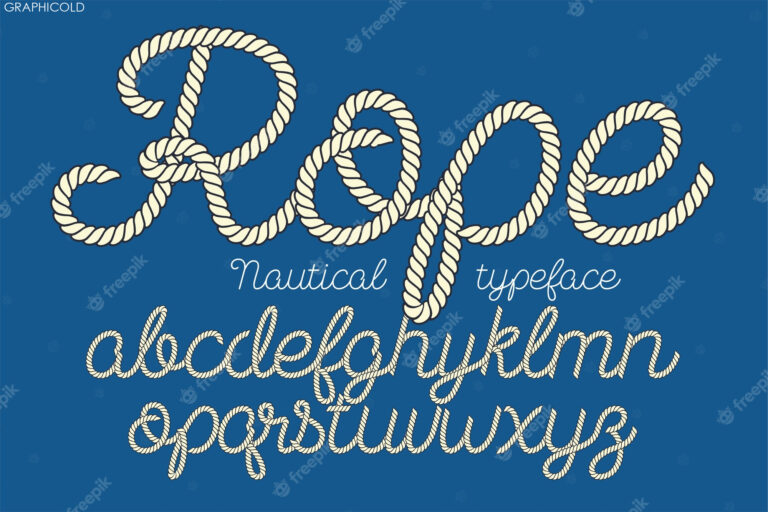
Exploring The Intricate Beauty Of Rope Fonts
rope font: Adding a Touch of Nautical Charm to Typography
Typography plays a crucial role in visual communication, as it sets the tone and enhances the message being conveyed. With countless font styles available, designers are constantly on the lookout for unique and eye-catching options. One such font style that has gained popularity in recent years is the rope font.
As the name suggests, rope font takes inspiration from the twisted and intertwined nature of ropes commonly used in maritime settings. This font style adds a touch of nautical charm and whimsy to any design, making it perfect for projects related to sailing, beach themes, or anything that requires a rustic and adventurous vibe.
Rope fonts are characterized by their thick, rope-like appearance, with each letter intricately designed to resemble twisted or braided ropes. This attention to detail creates a visually striking and textured effect, setting rope fonts apart from more traditional font styles.
One of the advantages of using rope fonts is their versatility. They can be utilized in a wide range of design projects, including logos, posters, invitations, and even websites. The unique aesthetic of rope fonts instantly grabs attention and adds an element of uniqueness and character to any design.
Additionally, rope fonts can be paired with other design elements to further enhance their impact. For instance, combining rope fonts with anchor or seashell icons can create a cohesive and visually appealing design for a sea-themed event or brand. The rustic and handcrafted feel of rope fonts also allows them to work well with textured backgrounds or vintage-inspired design elements.
Despite their intricate appearance, rope fonts are relatively easy to use. They can be found in various digital formats, making them accessible to designers across different platforms. Moreover, they can be scaled or modified to fit different design requirements without losing their distinctive rope-like qualities.
In conclusion, rope fonts offer a captivating and unique option for designers looking to add some nautical charm to their projects. With their intricate design and textured appearance, rope fonts instantly stand out and create a memorable visual impact. Whether it’s for a maritime-themed event or simply to add a touch of rustic appeal, rope fonts are a versatile and captivating choice in the realm of typography.